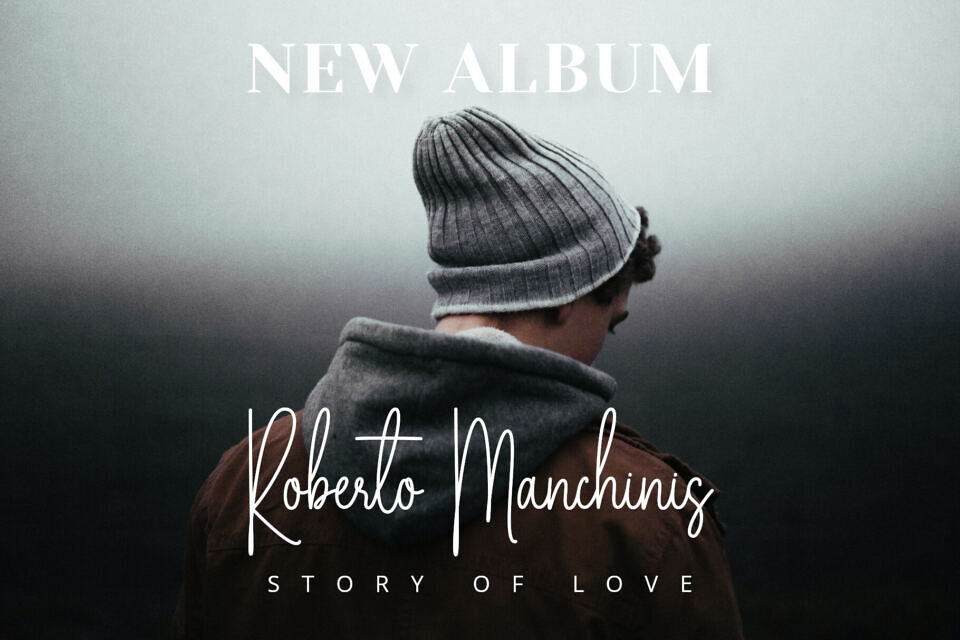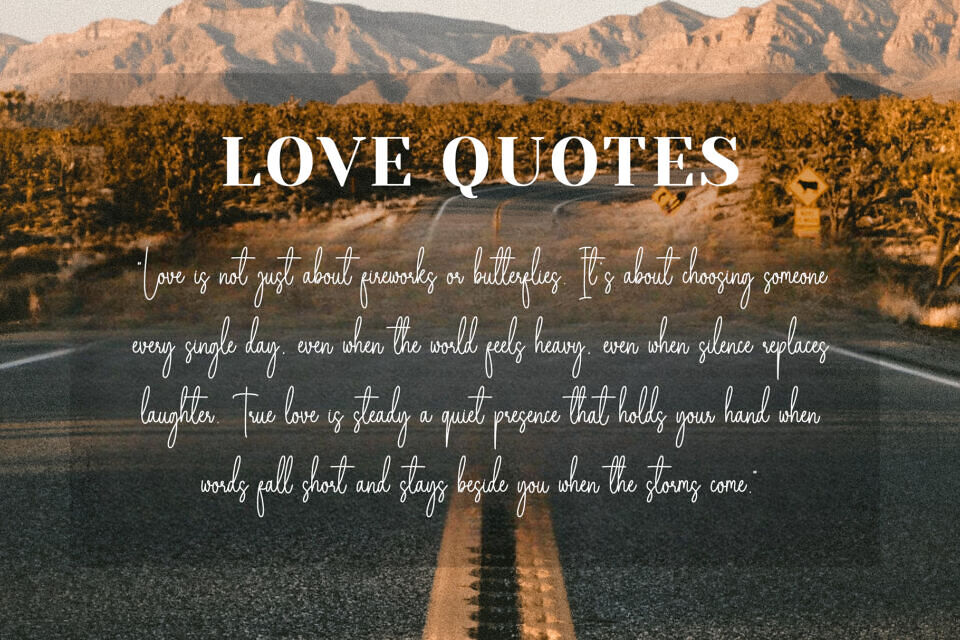
Elegant Classic Signature is a timeless handwritten script font that embodies elegance and modern sophistication. Designed with a graceful, flowing style, its classic signature strokes bring a personal and luxurious touch to any project.
With carefully balanced curves and refined calligraphy elements, Elegant Classic Signature is perfect for wedding invitations, signature logos, fashion branding, and modern packaging. Its handwritten character ensures each design feels unique, while its legibility makes it ideal for both print and digital use.